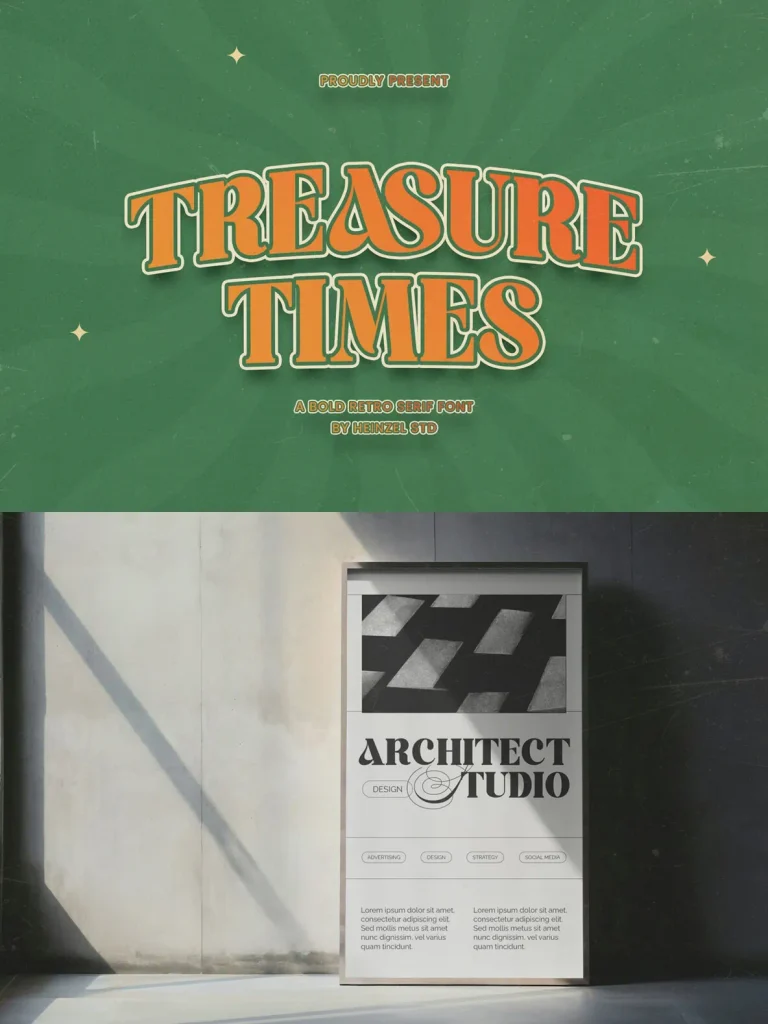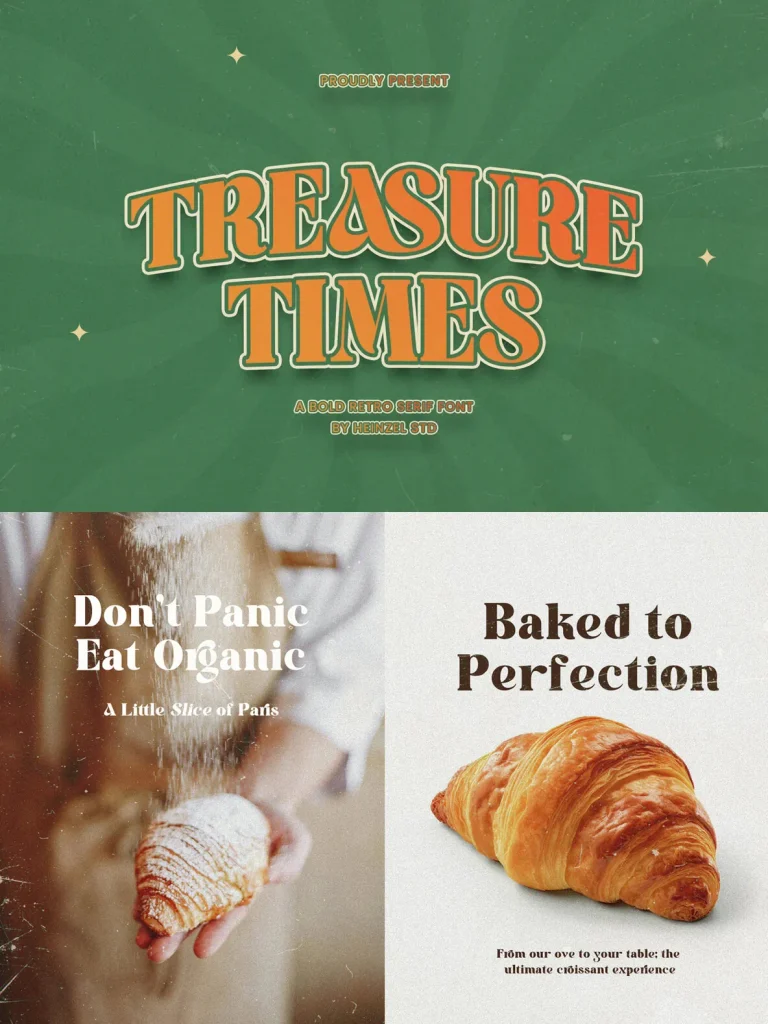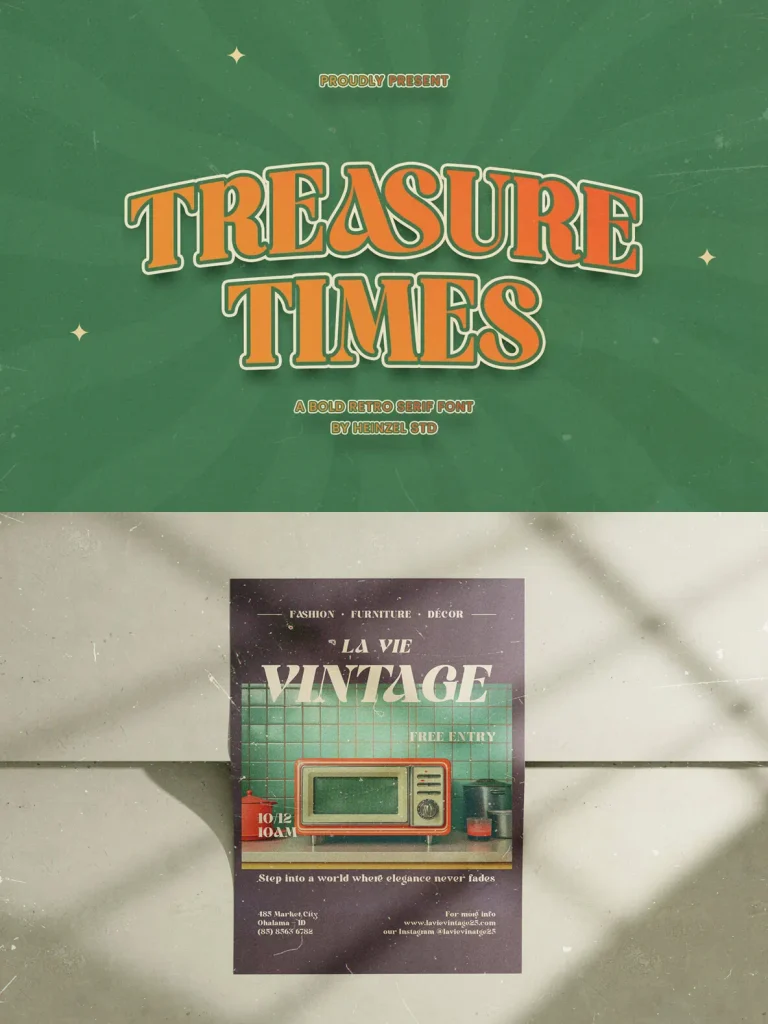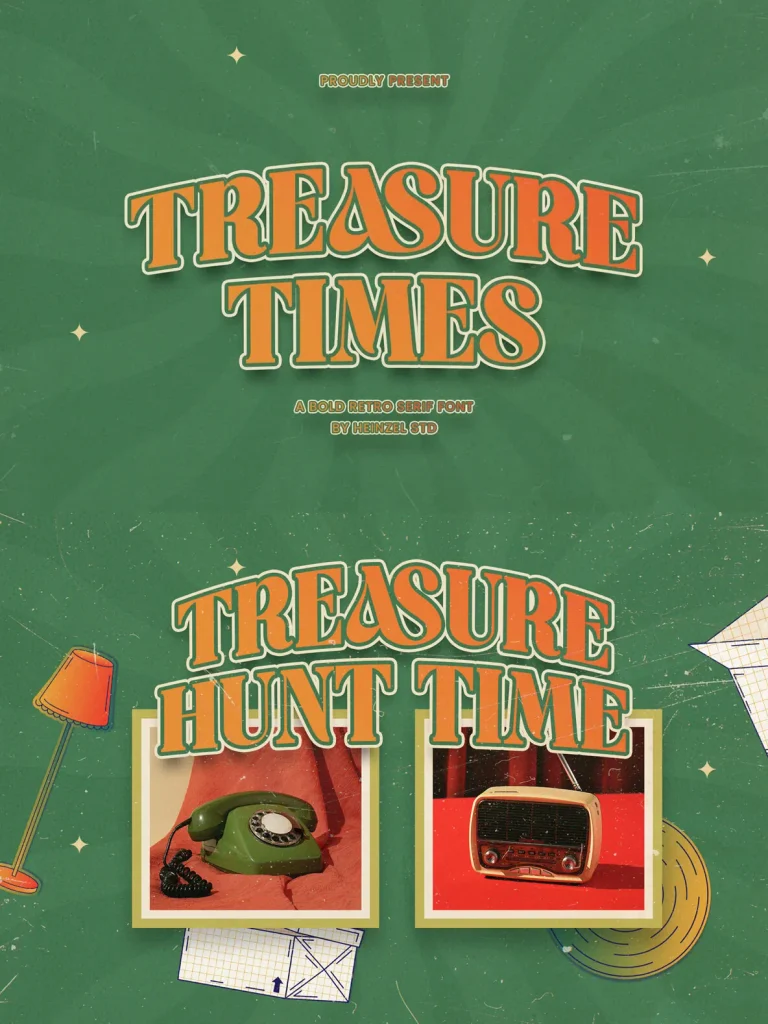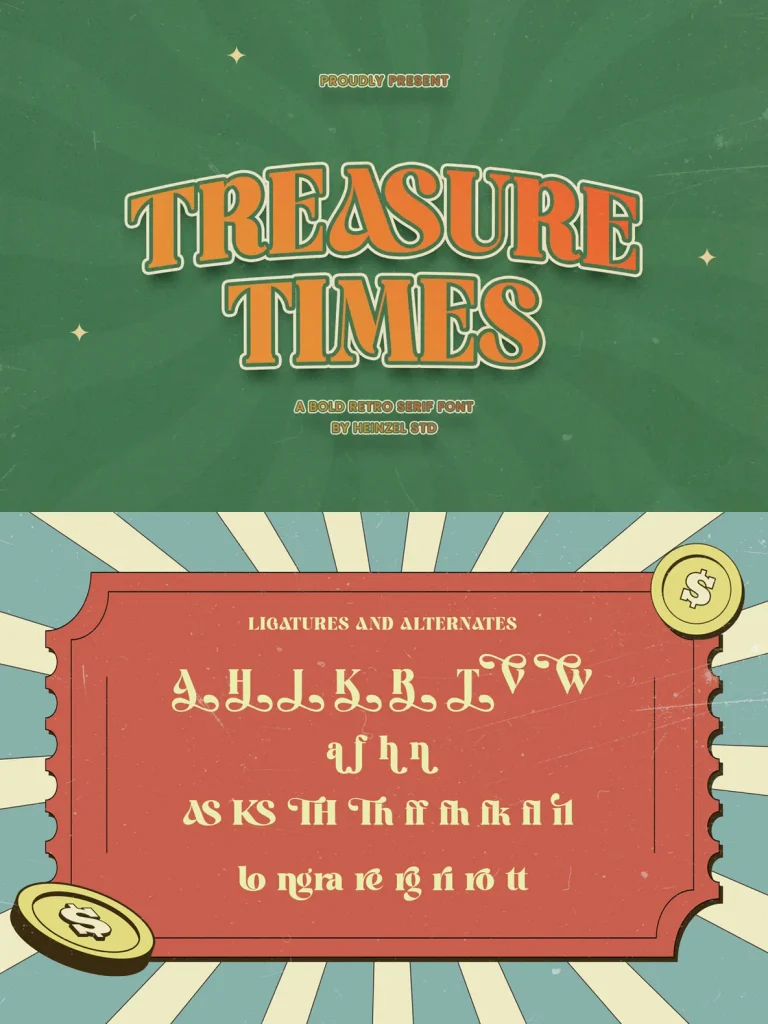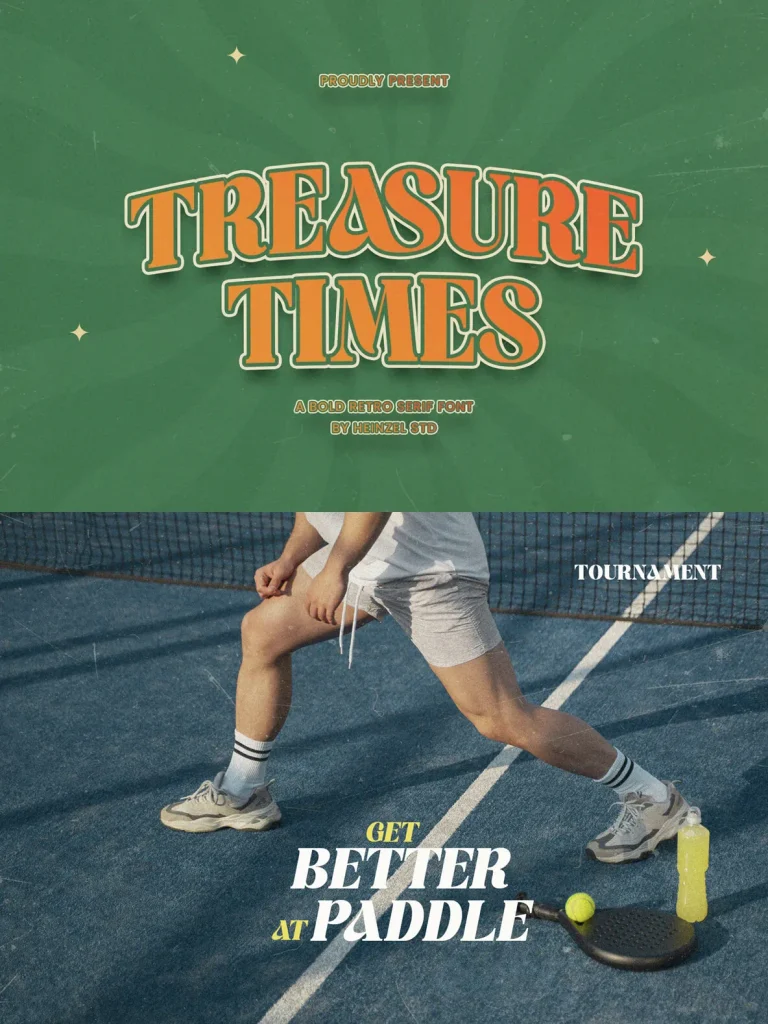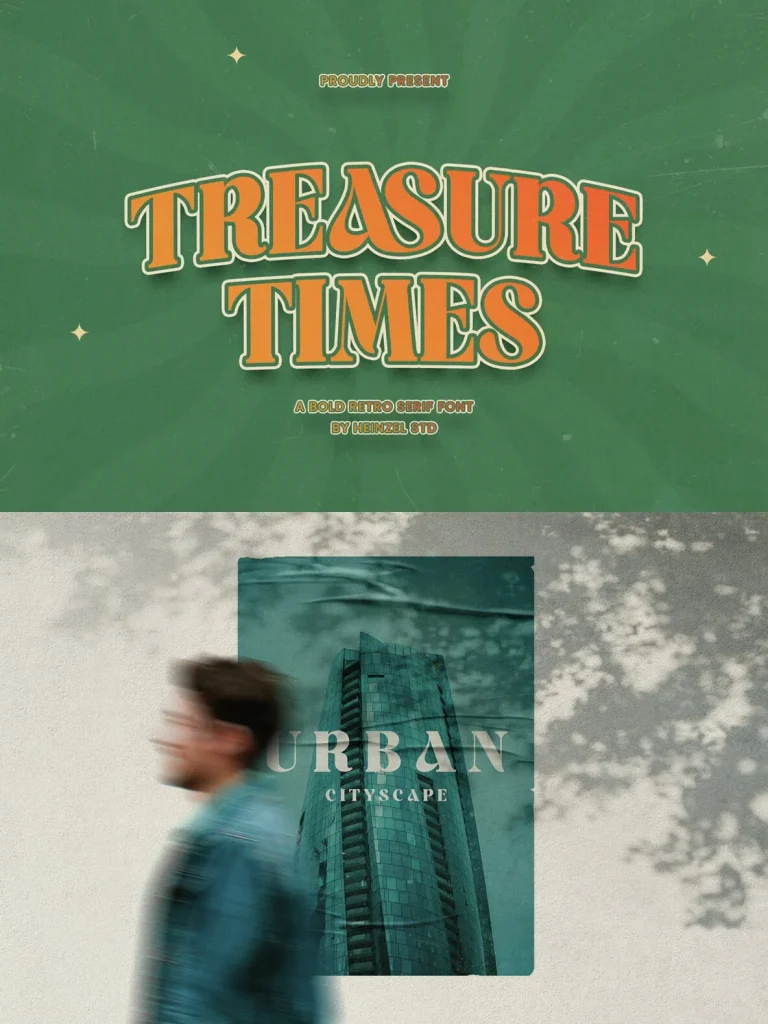
Treasure Times — Retro Serif With Swagger
Treasure Times is a bold retro serif font that captures the charm of vintage typography with a modern twist. Its strong letterforms, classic curves, and confident serifs give it a timeless yet playful aesthetic, with enough weight and personality to command attention.
Designed for display use, Treasure Times is a natural choice for headlines, logos, posters, packaging, branding, and retro-inspired designs that need to stand out with character and warmth. It brings a clear nostalgic voice to visual identities while keeping the composition sharp, readable, and full of presence.